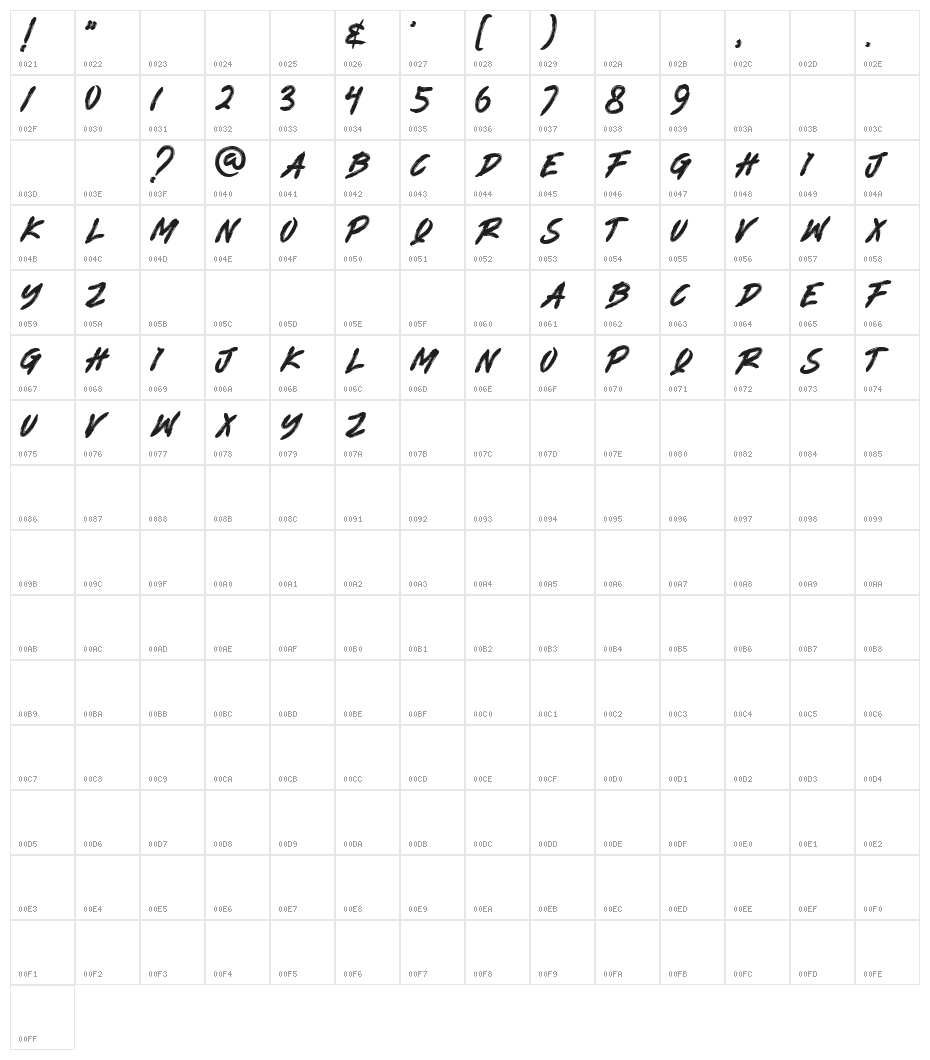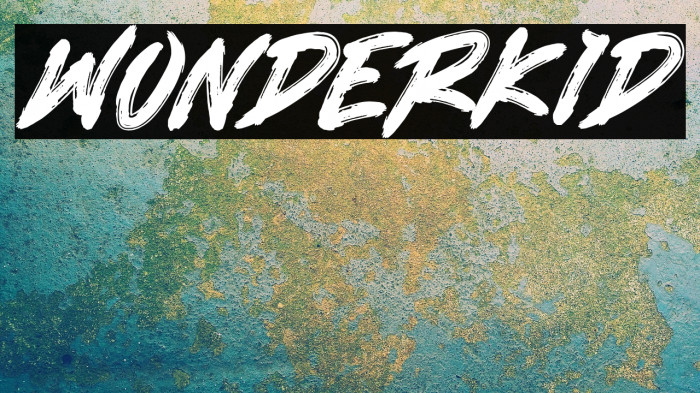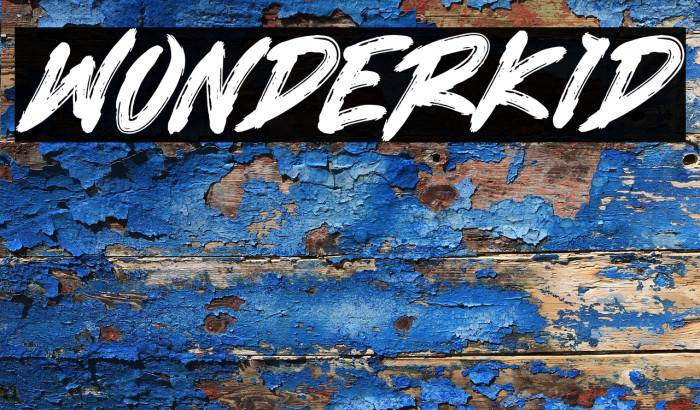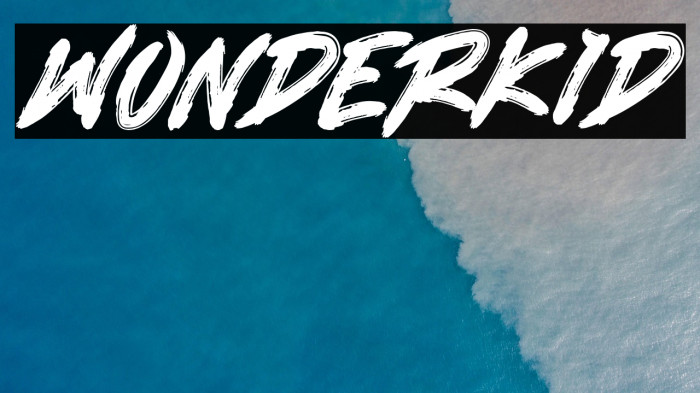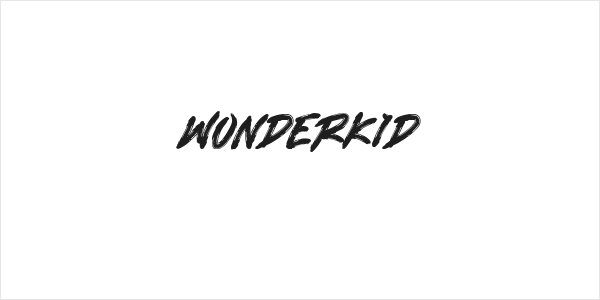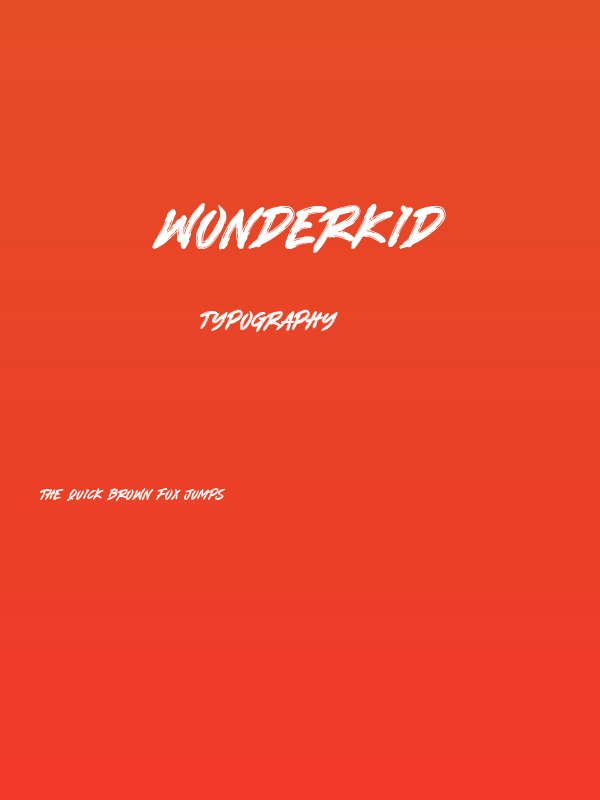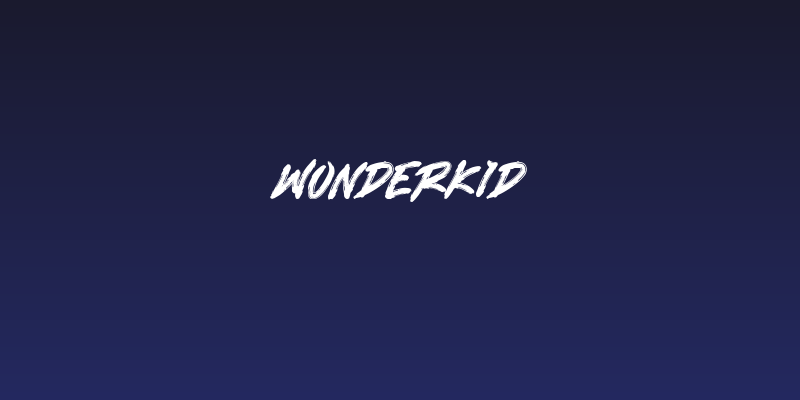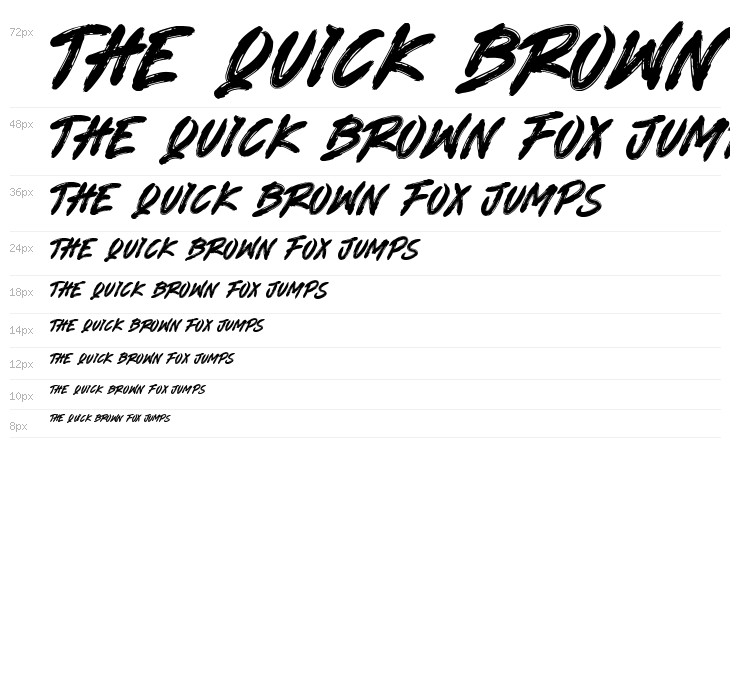
WONDERKID Font
WONDERKID Description
This font features a bold and dynamic script style, characterized by thick, brush-like strokes that convey a sense of energy and movement. The letters are slightly slanted, adding to the impression of speed and fluidity. The uppercase and lowercase letters maintain a consistent style, with the uppercase letters being more pronounced and the lowercase letters offering a smooth transition between characters. The numbers and special characters follow the same energetic style, making them stand out. This font is ideal for projects that require a lively and impactful visual presence.
| Proposed Projects | Ideal for branding, posters, sports team logos, and dynamic advertising campaigns. |